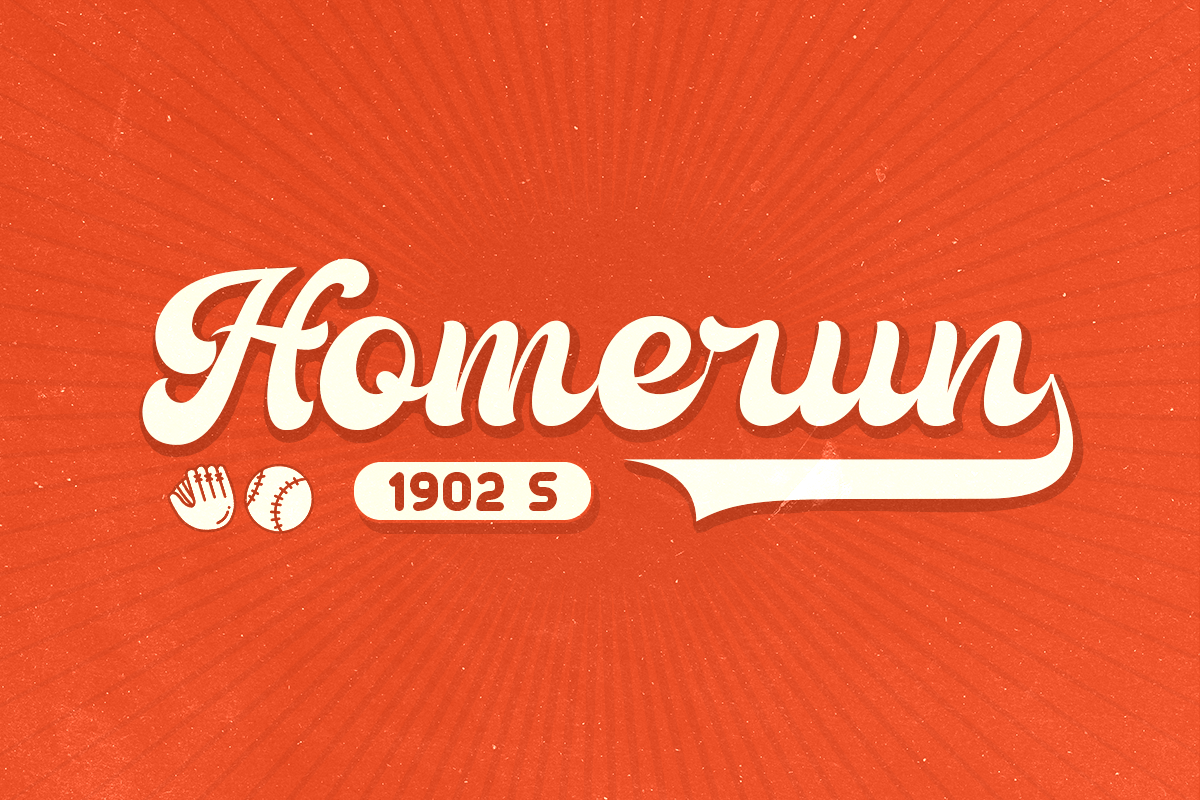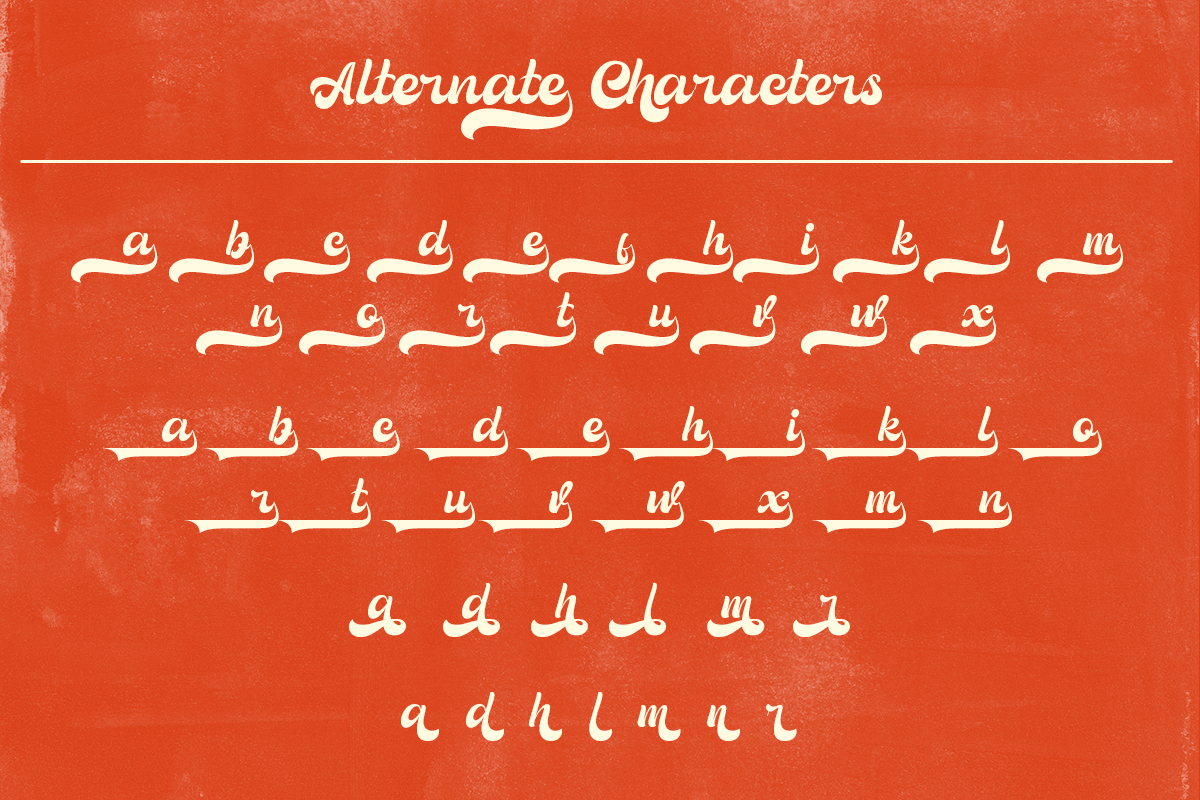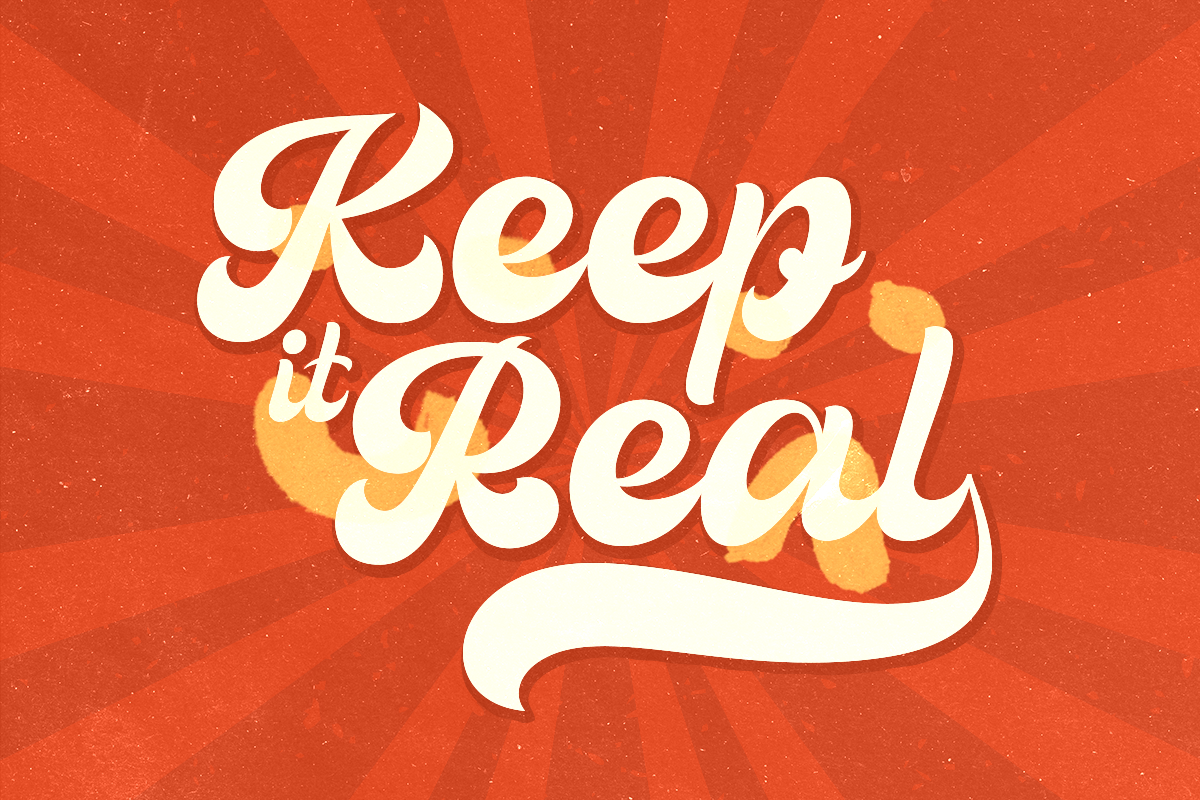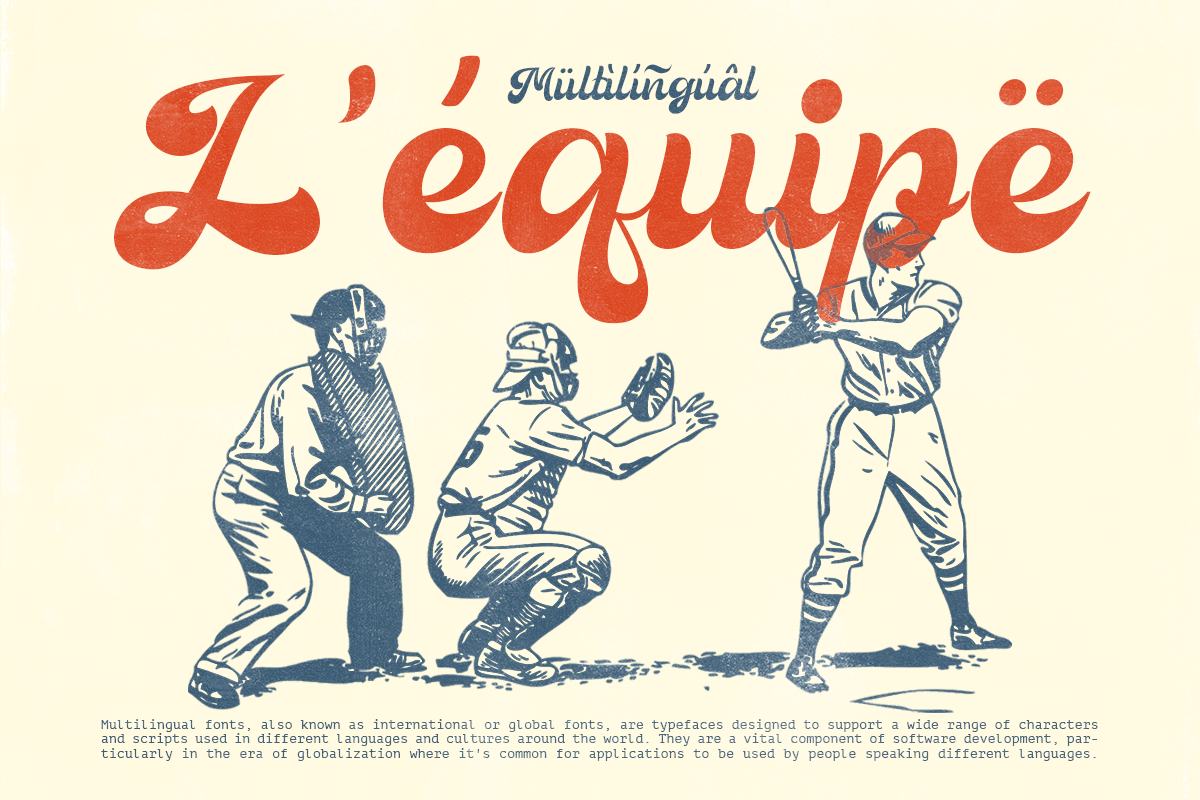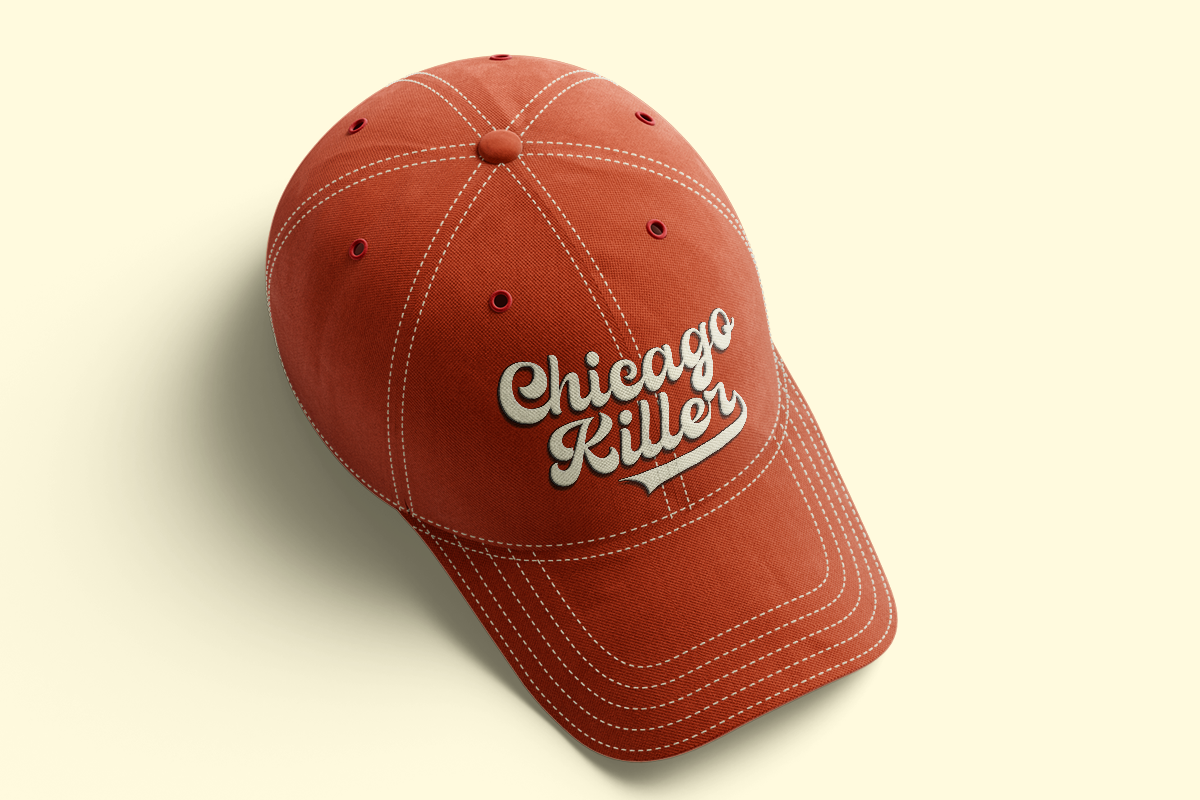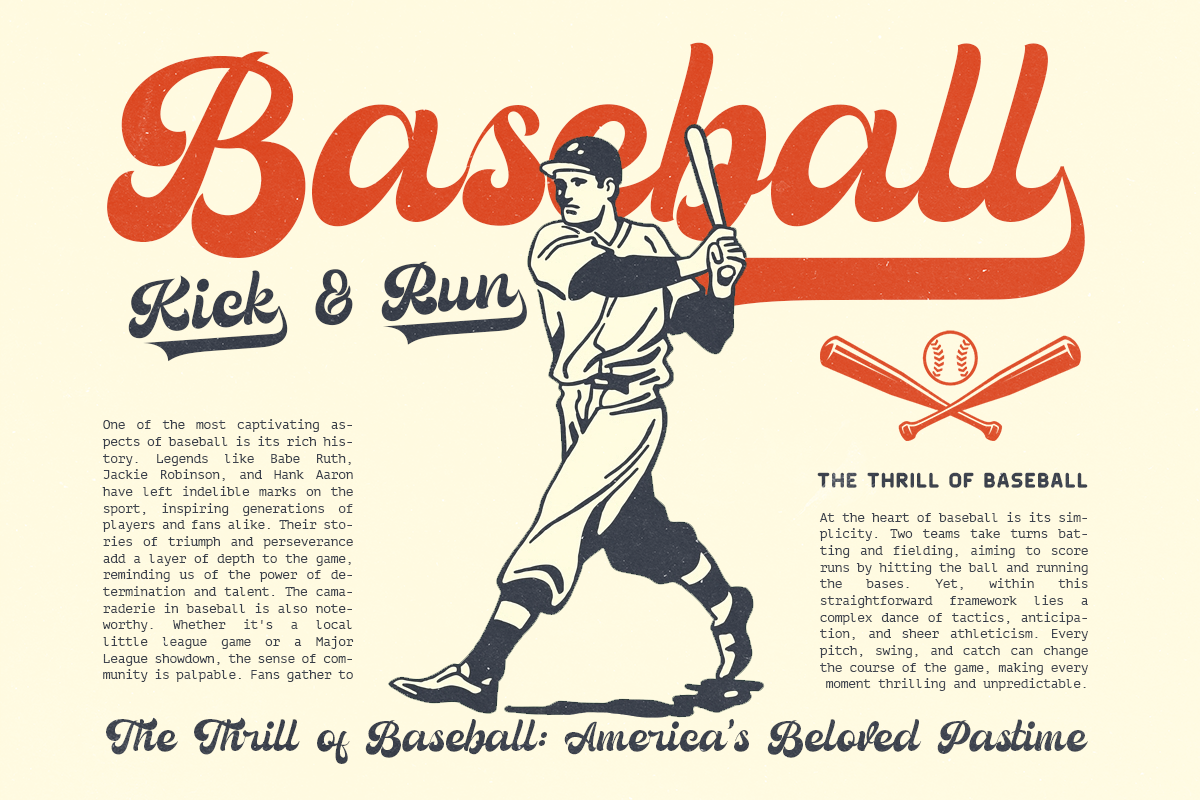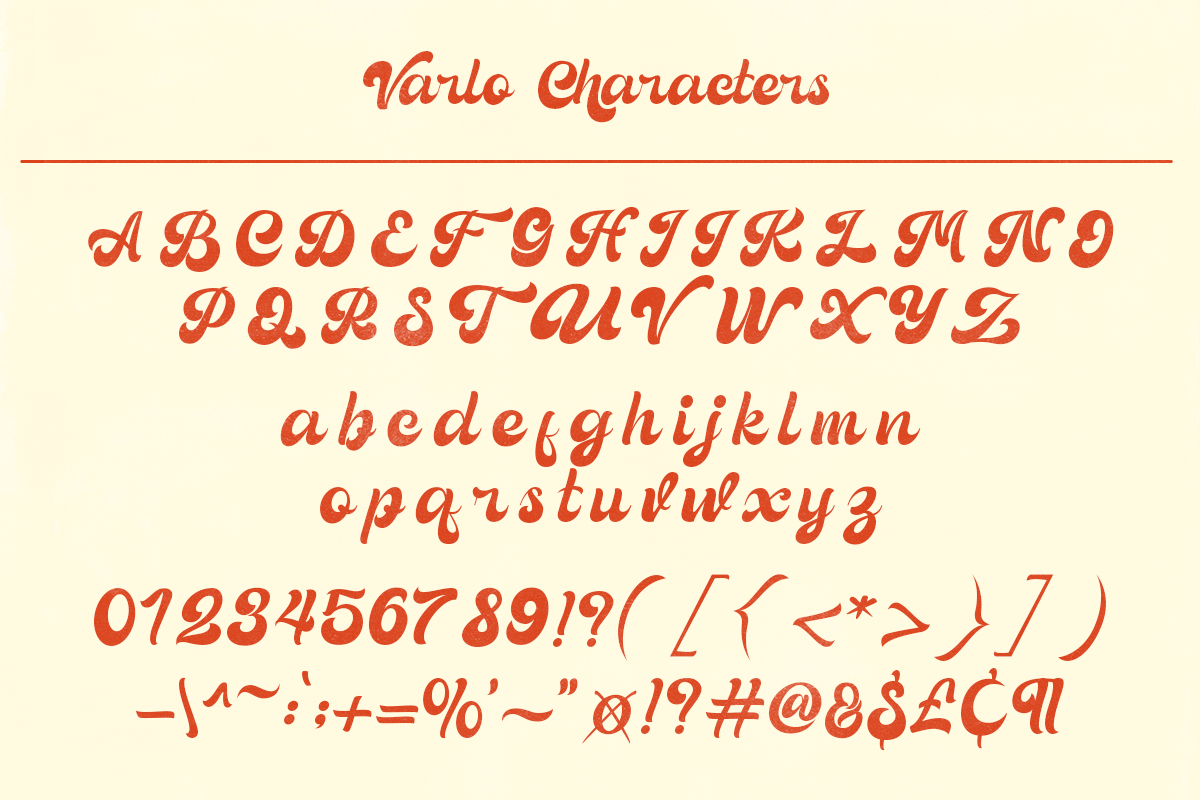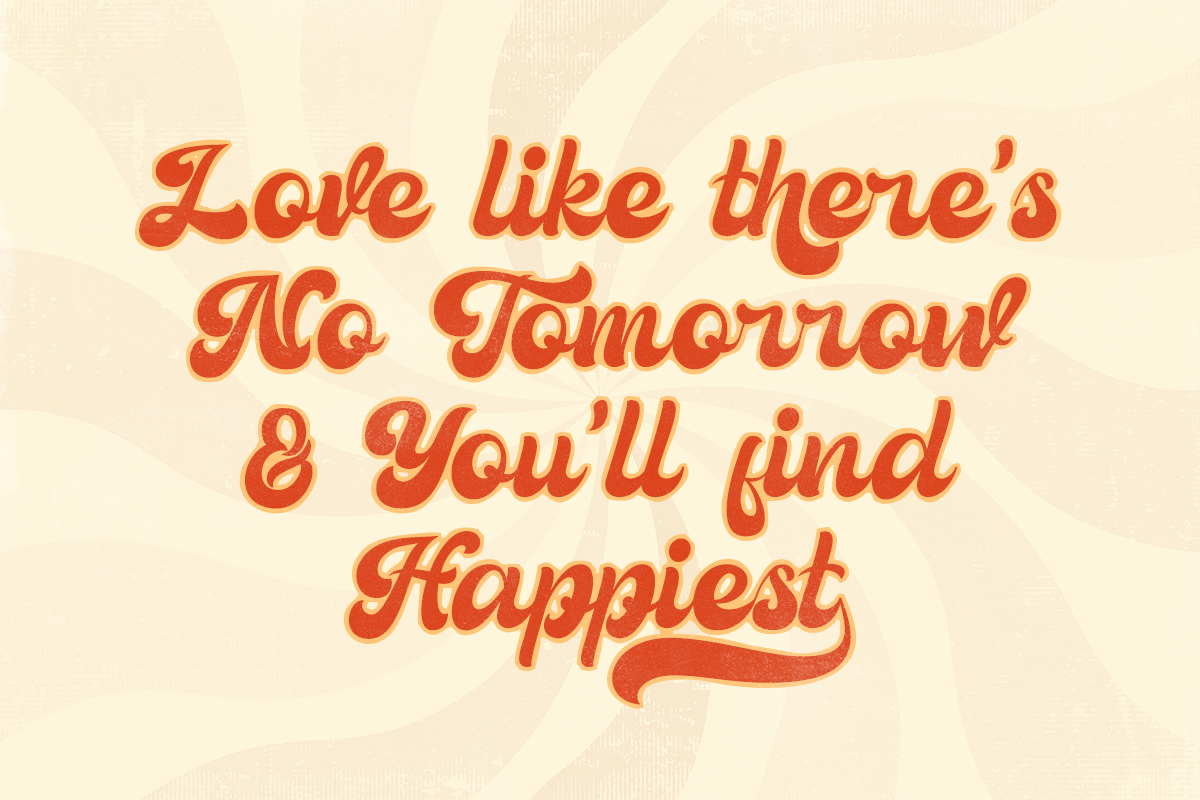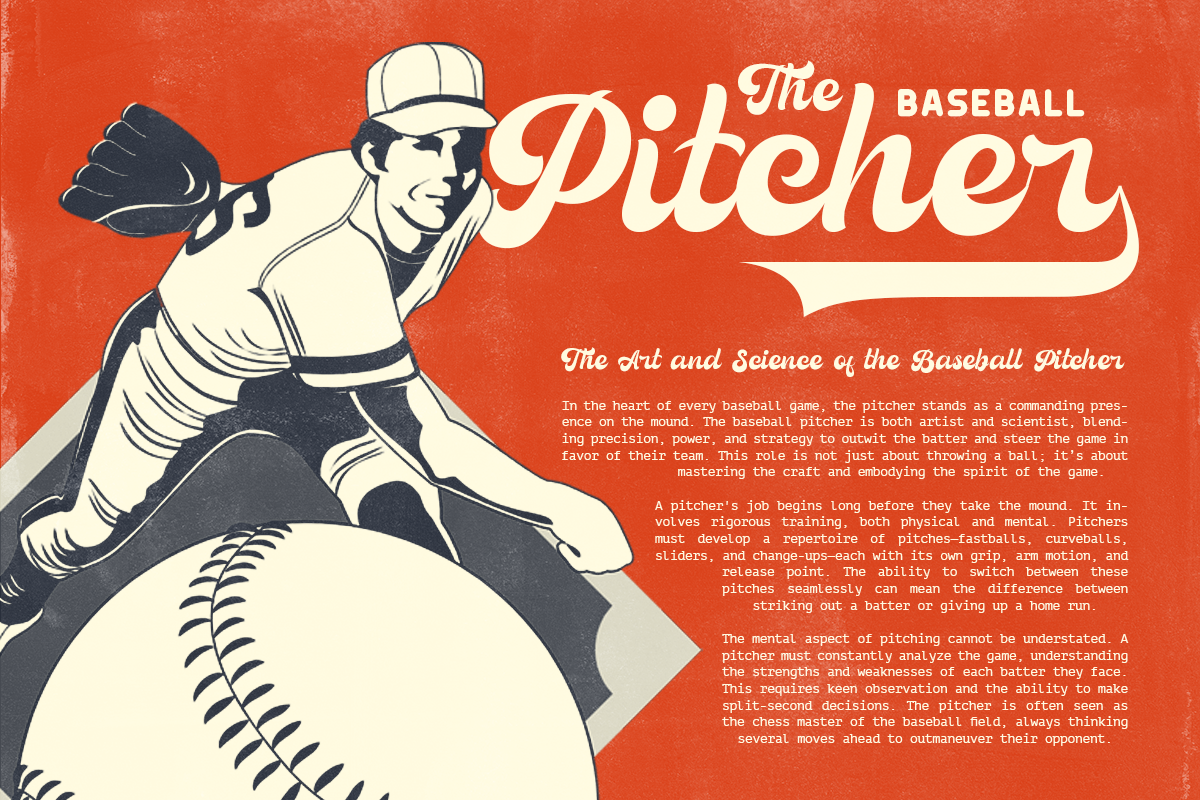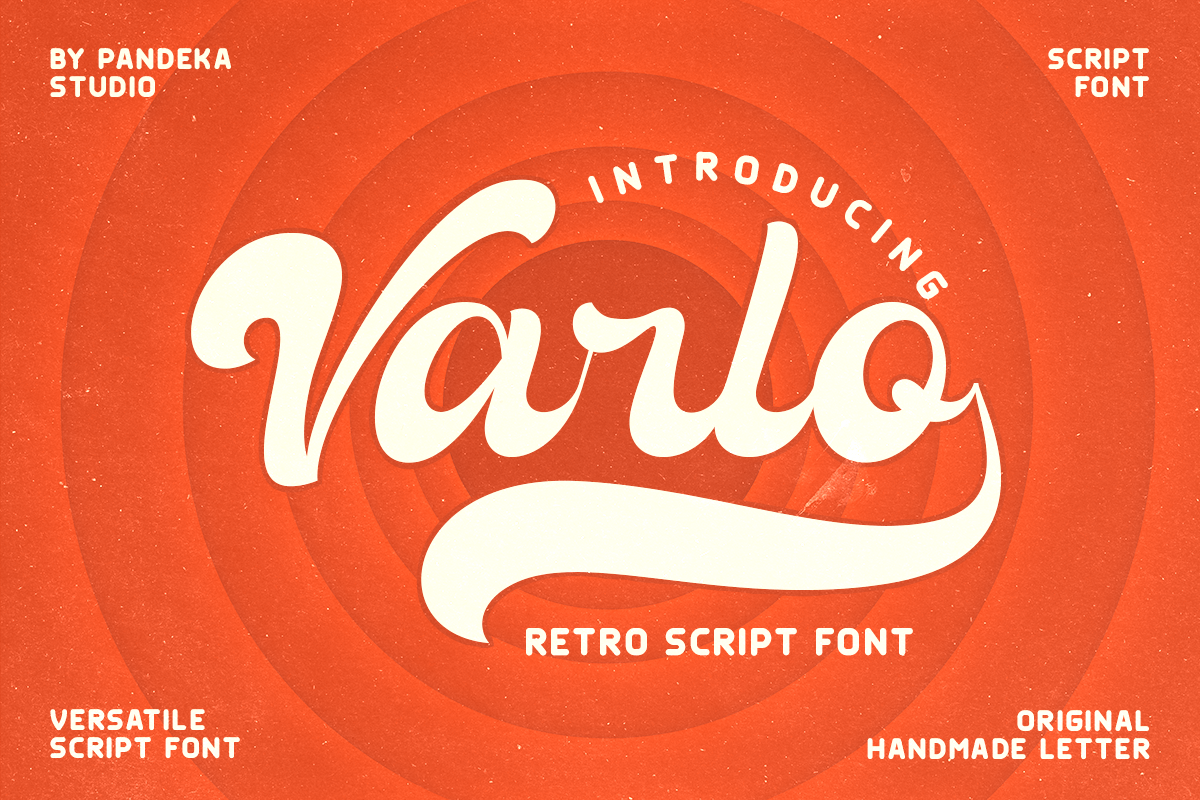
Varlo - Sport Baseball Font
Introducing Varlo – A bold script font inspired by 80s and 90s Americana with a modern twist. Perfect for sports teams, bar logos, beer labels, or any project needing a strong, sturdy script with character, Varlo channels the excitement of baseball.
With opentype features like standard ligatures and contextual alternates, Varlo ensures smooth letter connections. Customize with swash or titling alternates and explore the glyph palette for more options.
Complete your designs with Varlo ornaments, capturing the spirit of baseball perfectly.